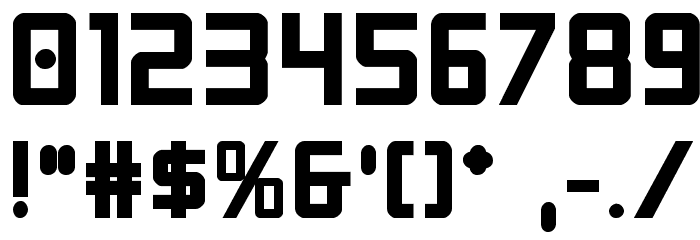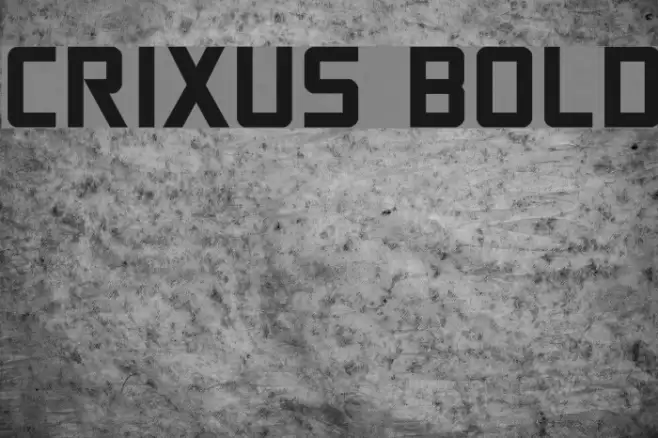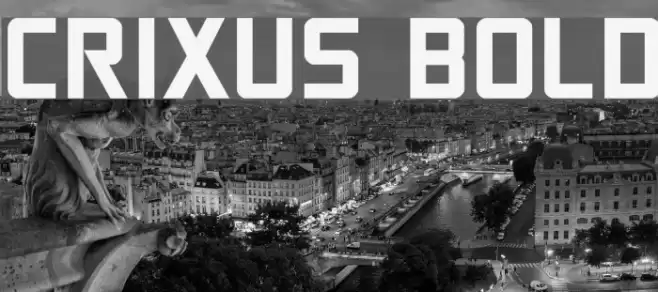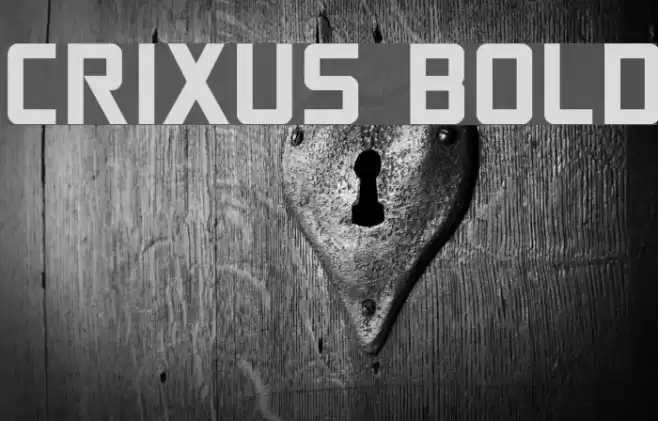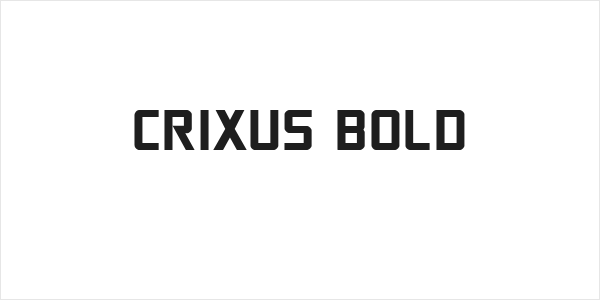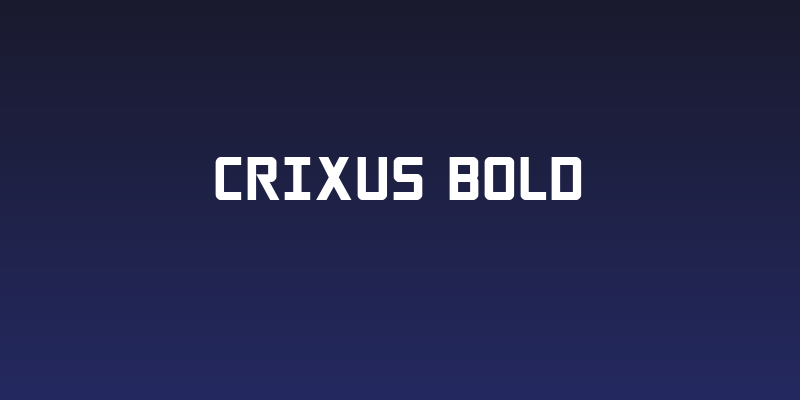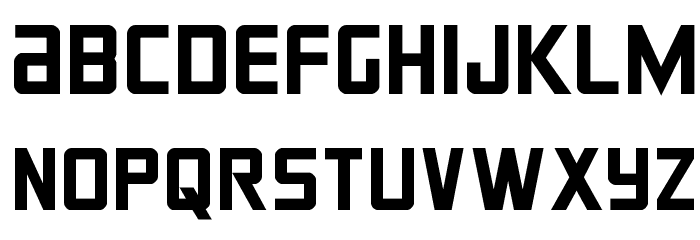
Crixus Bold Font
Crixus Bold Description
This font features a bold and geometric design with strong, angular lines and a modern aesthetic. The uppercase letters are uniform in height, creating a cohesive and structured appearance. The lowercase letters maintain the same boldness, ensuring readability and consistency. Numerals are clear and distinct, with a slightly futuristic feel. The special characters are designed to match the overall bold and geometric style, making them stand out effectively. This font is ideal for projects that require a strong visual impact and a modern, clean look.